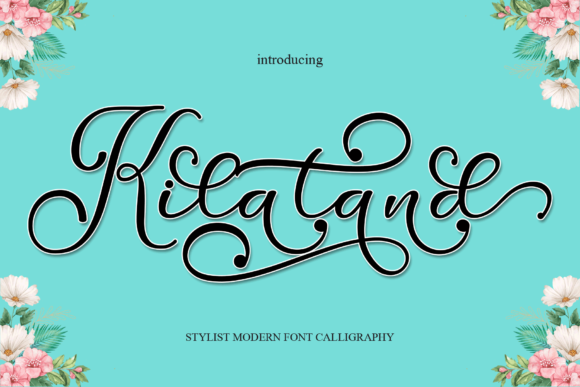
Journey into a world of sophistication and charm with Kilatand Font, an elegant script family handcrafted to leave a lasting impression. Its exquisite swirls and graceful curves evoke a sense of understated beauty, making it the perfect choice for adding a touch of magic to any project.
Immerse yourself in the world of Kilatand, where every letter is a work of art. Its delicate hairlines and subtle contrast create an undeniable allure, while carefully crafted kerning and spacing ensure easy readability. Experience the joy of seamless storytelling, whether you're designing wedding invitations, heartfelt thank-you cards, or business cards that command attention.
Express your individuality in a whirl of creativity with Kilatand's PUA encoding, granting you effortless access to a treasure trove of glyphs and swashes. Unveil hidden depths of elegance as you effortlessly intertwine characters, creating designs that dance with personality. Your words will radiate with an air of sophistication, capturing the essence of your message with remarkable flair.
Kilatand is more than just a font; it's a style statement waiting to be discovered. Elevate your designs to new heights, leaving a trail of inspiration in your wake. Whether you're a seasoned artist or just beginning your creative adventure, Kilatand will guide you through your design journey with ease.
Discover the boundless versatility of Kilatand, a font that effortlessly adapts to a myriad of creative endeavors. Let your imagination soar as you explore the world of branding, crafting logos that exude professionalism and capture the essence of your brand identity. Design social media graphics that spark conversations and leave an indelible mark on your audience. The possibilities are endless, awaiting your artistic touch to bring them to life.
Embrace the beauty of Kilatand and unleash the limitless potential within your creative spirit. Every project, every word, every design will be imbued with a touch of elegance and charm that resonates with your audience. Welcome Kilatand into your design toolkit and embark on a creative odyssey where imagination knows no bounds.